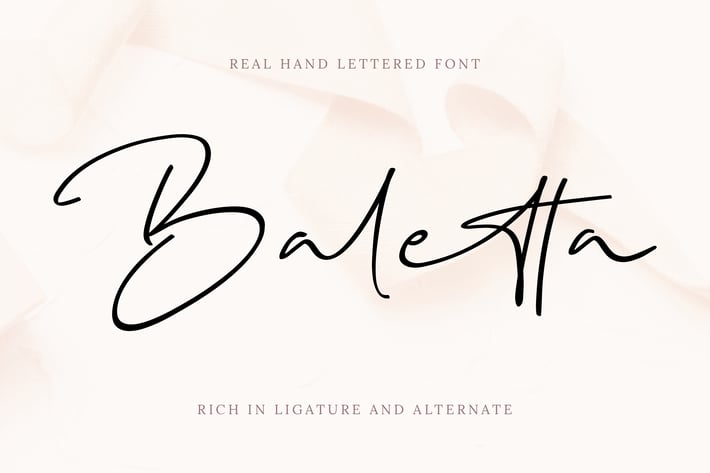
Script
Baletta is a signature style font with the vibe of real hand lettering. It is perfect for luxury brand, beauty brand, fashion, artist, blogging, social media, wedding invites, cards and more. Baletta comes with clean nodes and perfect anchor points that makes all glyphs curves smoother.
Baletta Font includes full set of gorgeous uppercase and lowercase Cyrillic and English letters, multilingual symbols, numerals, punctuation and ligatures.
To keep maximum real hand lettered effect, there were created 45 ligatures (you can see them among preview pictures). By using these ligatures, you can give realistic handlettered style, escaping font "pattern" effect.
Features of Baletta Typeface;
- Tons of glyphs (232 total glyphs)
- Tons of ligatures (45 total ligatures)
- Clean Nodes, we cuts down every unnecessary node
- PUA Encoded Characters - Fully accessible without additional design software.